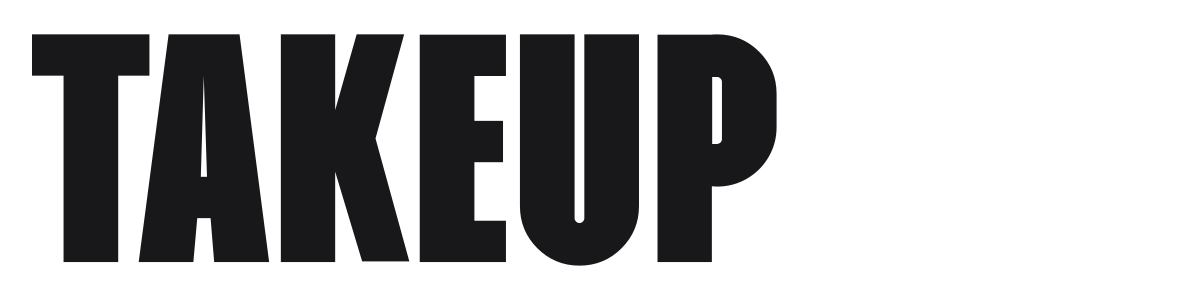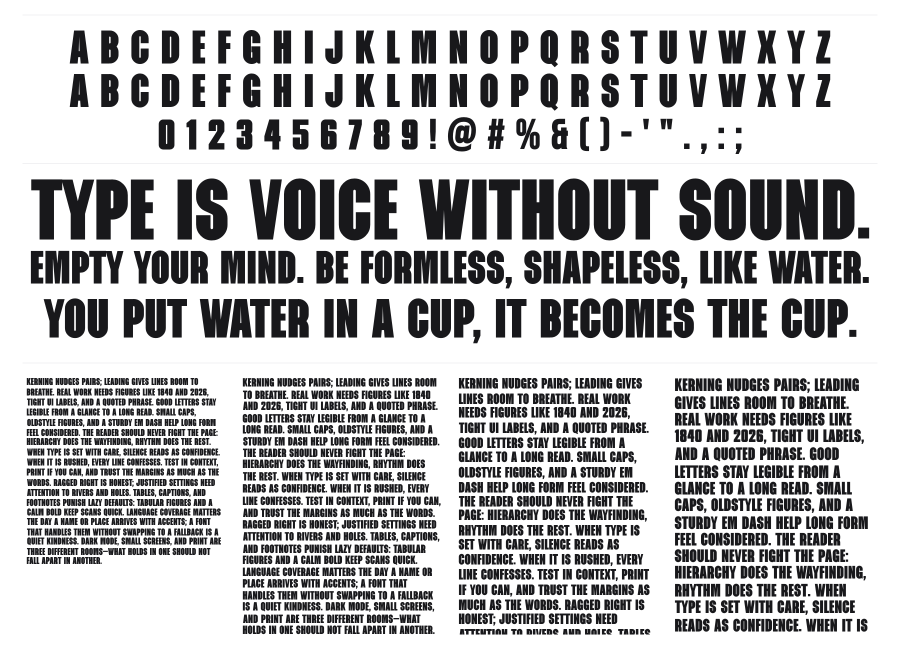
Takeup
Takeup is a heavy condensed grotesque sans with extreme vertical compression and a commanding black weight. Its tight proportions and bold stroke pack a lot of typographic force into a narrow column, making it a natural choice for impactful headlines and poster work. The slightly rounded terminals keep it from feeling too rigid.